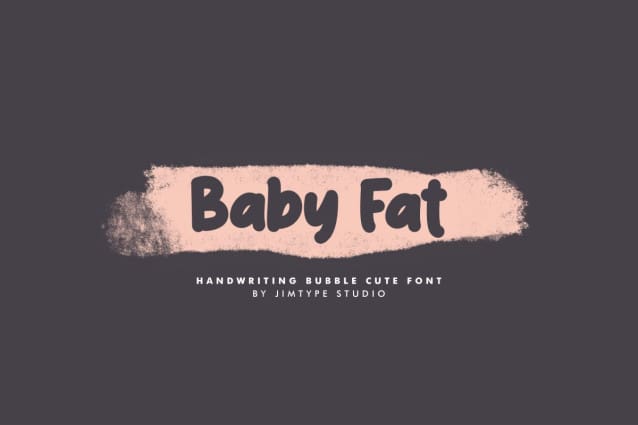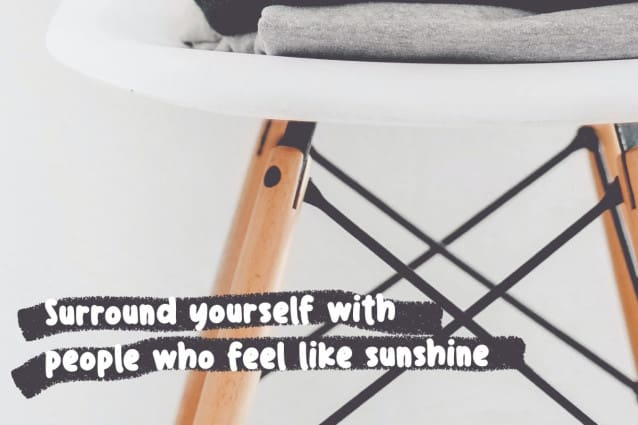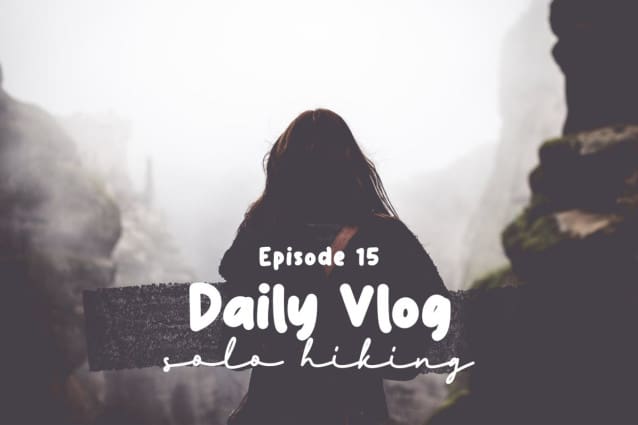
Baby Fat Font
Baby Fat Font is a delightful fusion of handwritten charm and comic whimsy. This adorable font embodies a playful spirit, making it perfect for a range of applications, from YouTube thumbnails to children’s content and beyond.
Whether you’re creating content for a children’s channel, designing eye-catching social media posts, or adding a touch of playfulness to your brand, Baby Fat is the go-to font for infusing warmth and personality into your work. Upgrade your typography game with this endearing and versatile font!
Designer Name: jimtypestudio